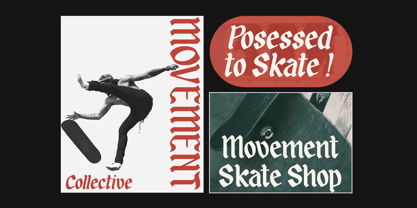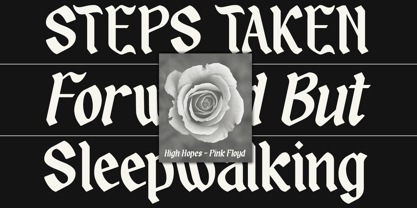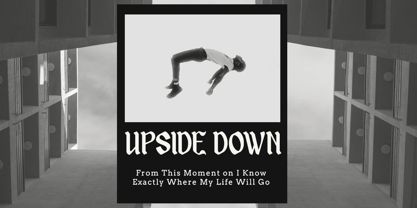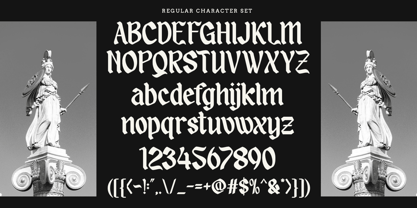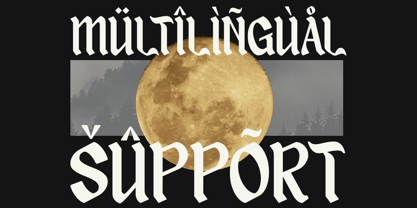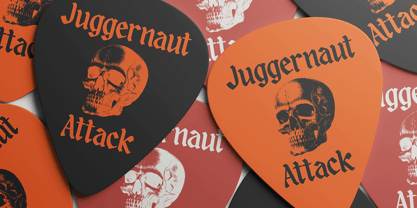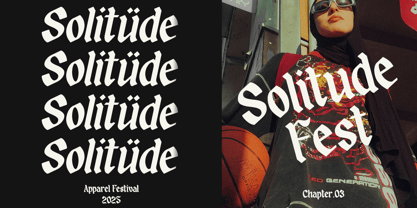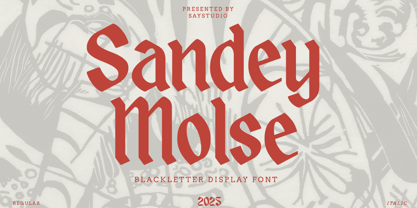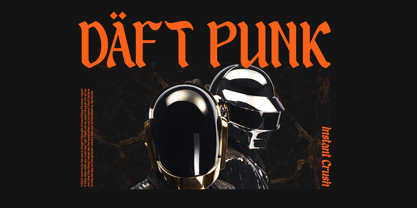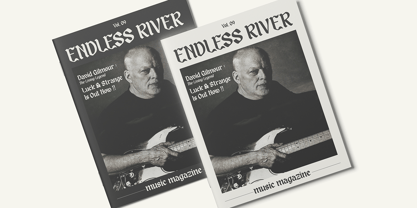
Sandey Molse
by Say Studio
The Sandey Molse Font Family was designed by Mussyayin and published by Say Studio. Sandey Molse contains 2 styles and family package options. More about this family
Sandey Molse is a Blackletter display typeface. Its distinctive diagonal slice on each glyph seamlessly blends modern sophistication with a touch of rigidity. It is ideal for those seeking a bold and refined look for their projects. On the other hand, Sandey Molse is designed for ease of use, featuring effortlessly legible characters. Perfect for headlines, logos, and branding, it brings a modern and edgy flair to your designs, making them stand out effortlessly.
- Multilingual Support